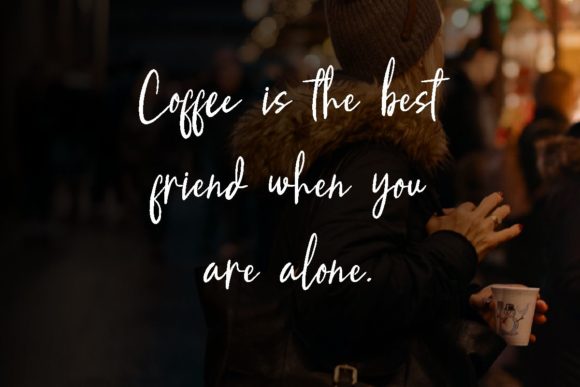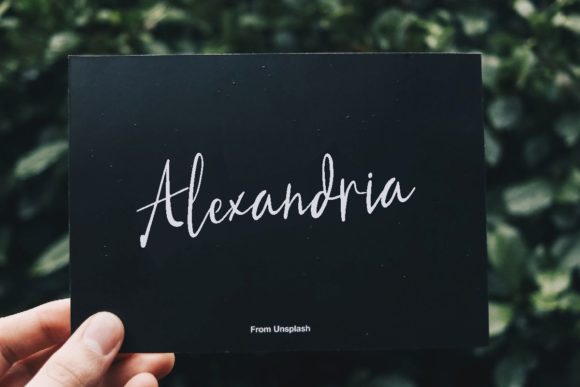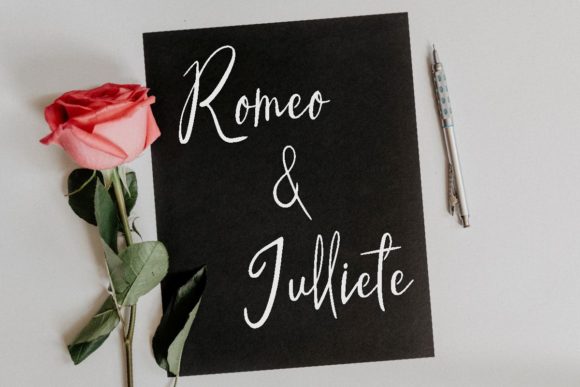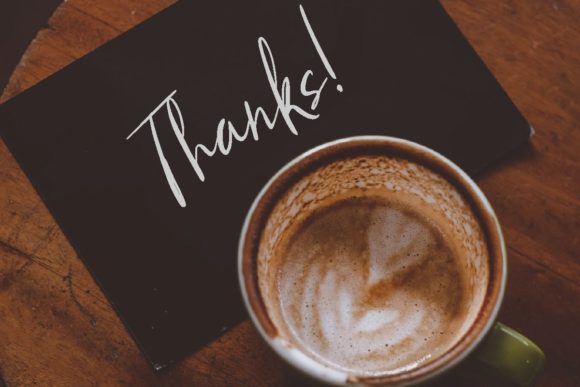
Coffee Night Font: The Perfect Choice for Adding a Personalized Touch to Your Designs
Are you a designer or crafter looking for a unique and elegant font to add a personal touch to your creations? Look no further than Coffee Night Font. This delicate and warm handwritten font is perfect for a variety of design projects, from wedding invitations and thank you cards to quotes, greeting cards, logos, and business cards.
What Makes Coffee Night Font So Special?
Coffee Night Font is a beautiful, handcrafted font that exudes warmth and elegance. Its delicate lines and curves make it perfect for designs that require a personal and intimate feel. Whether you’re creating wedding stationery, branding materials, or social media graphics, Coffee Night Font is sure to impress.
Perfect for Wedding and Event Design
Coffee Night Font is an excellent choice for wedding and event design. Its romantic and whimsical feel makes it perfect for wedding invitations, save-the-date cards, and thank you notes. The font’s elegant and refined appearance also makes it suitable for more formal events, such as baby showers, graduations, and anniversaries.
Adding a Personal Touch to Your Designs
Coffee Night Font is designed to add a personal touch to your designs. Its handwritten feel makes it perfect for quotes, testimonials, and other types of text that require a personal and emotive tone. The font is also great for creating custom logos, business cards, and letterheads that reflect your brand’s personality and style.
Key Features of Coffee Night Font
- Delicate and warm handwritten font: Coffee Night Font features delicate lines and curves that give it a warm and inviting feel.
- Perfect for wedding and event design: The font’s romantic and whimsical feel makes it perfect for wedding invitations, save-the-date cards, and thank you notes.
- Great for adding a personal touch: Coffee Night Font is designed to add a personal touch to your designs, making it perfect for quotes, testimonials, and other types of text.
- Elegant and refined appearance: The font’s elegant and refined appearance makes it suitable for more formal events and designs.
Tips for Using Coffee Night Font
Here are some tips for using Coffee Night Font in your designs:
- Pair with a bold font: Pair Coffee Night Font with a bold font to create contrast and visual interest.
- Use for headlines and body text: Use Coffee Night Font for headlines and body text to create a cohesive and elegant look.
- Add embellishments: Add embellishments, such as flowers or leaves, to give your designs a more whimsical feel.
- Experiment with colors: Experiment with different colors to find the perfect combination for your design.
| Font Name | Coffee Night Font |
| Author | Pidco.art |
Coffee Night Font is a beautiful and elegant handwritten font that’s perfect for designers and crafters looking to add a personal touch to their creations. With its delicate lines and curves, romantic and whimsical feel, and elegant and refined appearance, Coffee Night Font is sure to impress. Whether you’re creating wedding stationery, branding materials, or social media graphics, Coffee Night Font is the perfect choice.